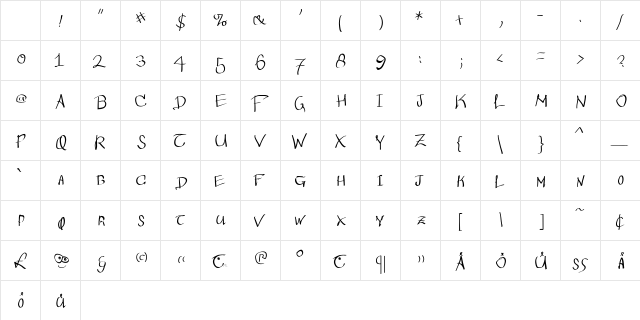
Complete Wacomian Regular glyph index. Displaying only characters natively supported by Wacomian Regular font.
Wacomian is a composed and adaptable typeface that performs quietly and consistently across a wide range of design contexts.